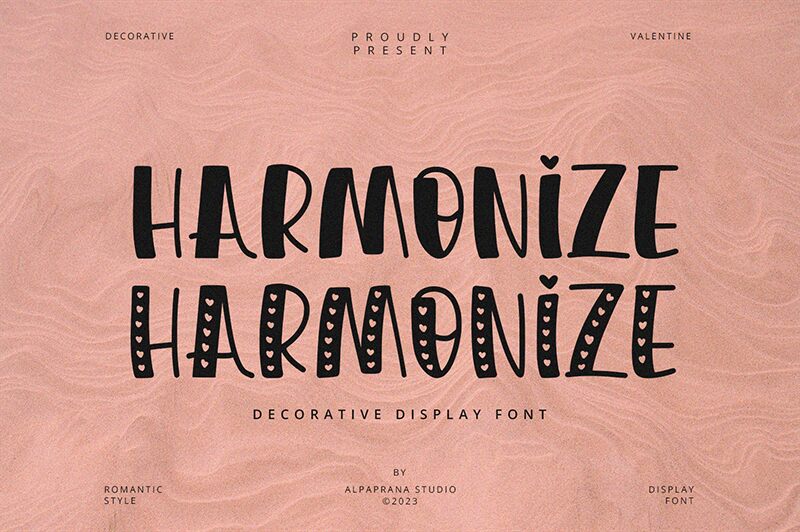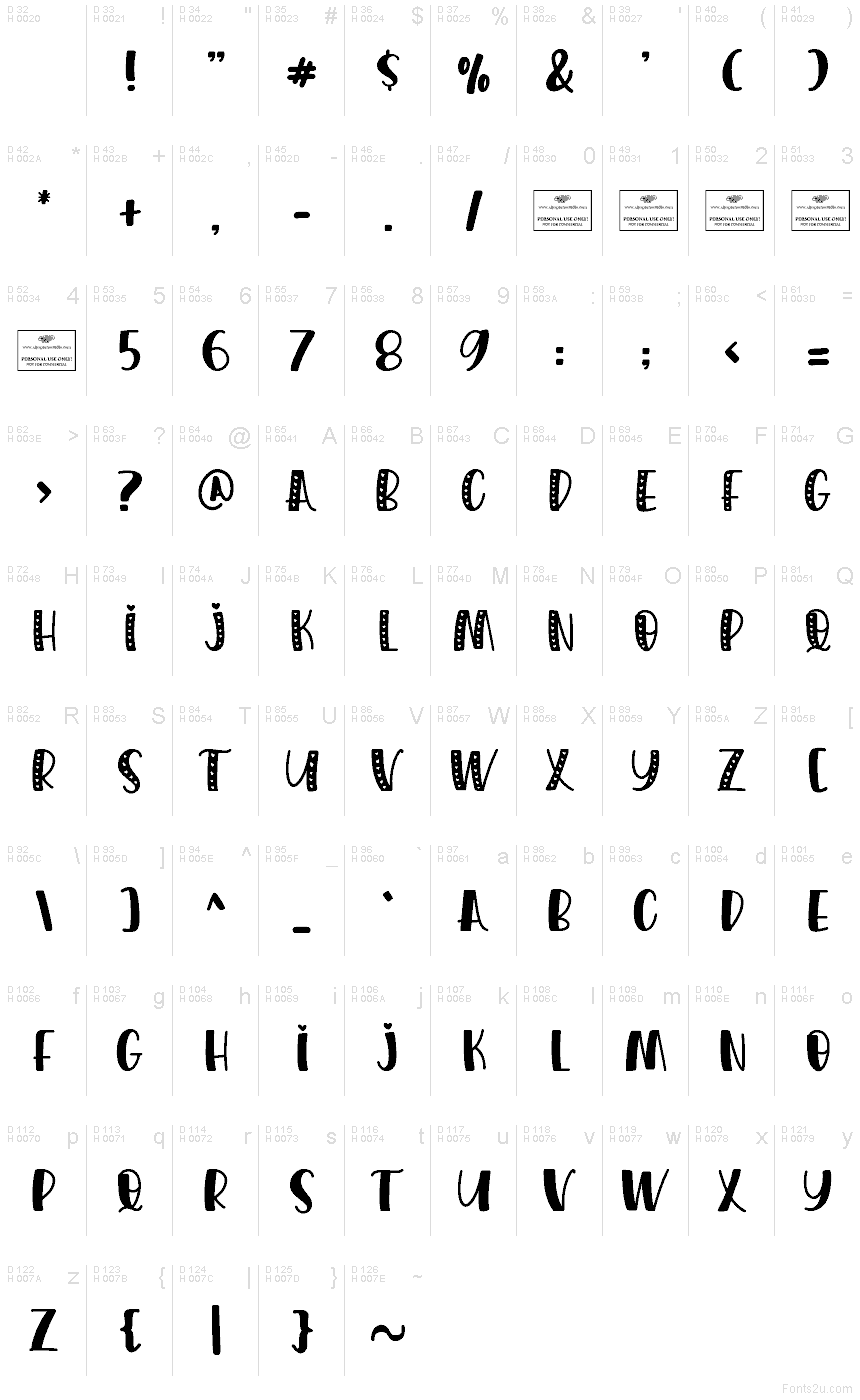
Harmonize
Harmonize font is a free decorative font designed by Alpaprana Studio. The bold letters achieve even more presence through the different uncommon details that create their character shapes. Staying in an atypical design, the font features diagonal, vertical, and horizontal elements within certain characters.
The unusual style of this typeface is suitable for valentines’ day cards, wrapping gifts, packaging product designs, and greeting cards as well. Other possible use cases may include invitation design, social media graphics on Instagram or Facebook, posters and flyers among others.